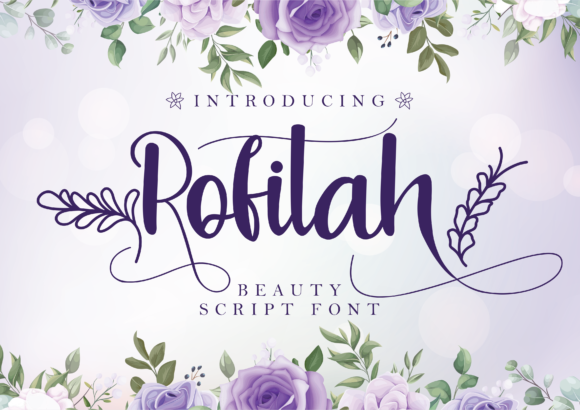
Rofitah Font
Introducing Rofitah Script: A Font of Timeless Elegance
In a world clamoring for attention, sometimes the most enchanting messages are delivered in the softest whispers. Rofitah Script, a delicate and graceful script font, embodies this captivating allure, inviting you to craft designs that speak volumes with their understated sophistication.
Unleash your creativity and let Rofitah's flowing curves and elegant flourishes add a touch of timeless charm to your creations. Picture the delicate strokes of Rofitah gracing your wedding invitations, transforming them into exquisite keepsakes that evoke the tender emotions of your special day. Envision the beauty of your stationary art adorned with Rofitah's ornate characters, each letter a testament to the enduring power of handwritten sentiments.
With Rofitah as your chosen font, your social media posts will blossom into captivating expressions of your thoughts and emotions. Its graceful lines will dance across your digital platforms, drawing eyes and hearts alike. Whether you're crafting heartfelt messages, sharing inspiring quotes, or showcasing your creative endeavors, Rofitah will lend an air of elegance and refinement to every post.
The versatility of Rofitah extends far beyond the realm of personal expression. Its inherent charm lends itself seamlessly to a myriad of design projects. From heartfelt logos that exude warmth and sophistication to product packaging that whispers promises of quality and allure, Rofitah's presence elevates every creation it graces.
Crafted with meticulous attention to detail, Rofitah boasts a comprehensive character set, ensuring that you have all the tools you need to bring your creative visions to life. Its PUA encoding ensures effortless access to a treasure trove of glyphs and swashes, empowering you to add intricate embellishments and flourishes that elevate your designs to new heights of visual appeal.
In a world saturated with noise and clamor, Rofitah Script emerges as a sanctuary of tranquility, a font that invites you to slow down, savor the moment, and create designs that resonate with timeless beauty and grace. Let Rofitah be your muse, your trusted companion in the realm of design, and watch as your creations blossom into masterpieces that capture hearts and leave an enduring legacy.